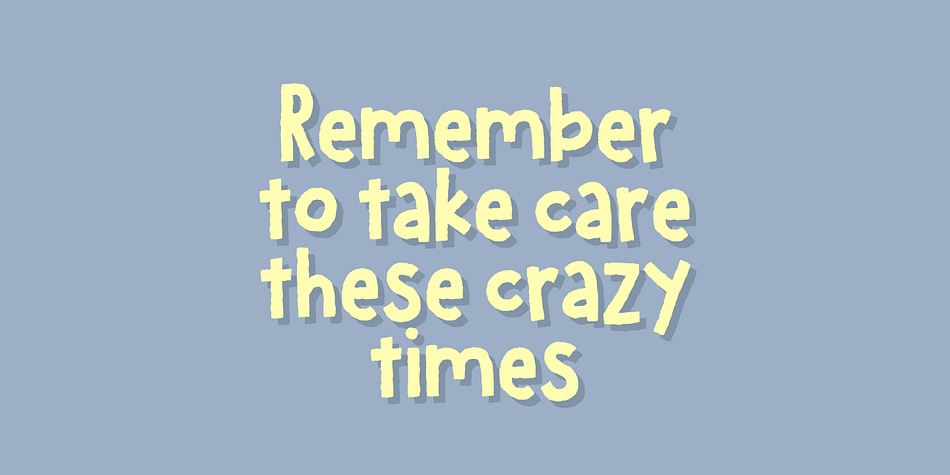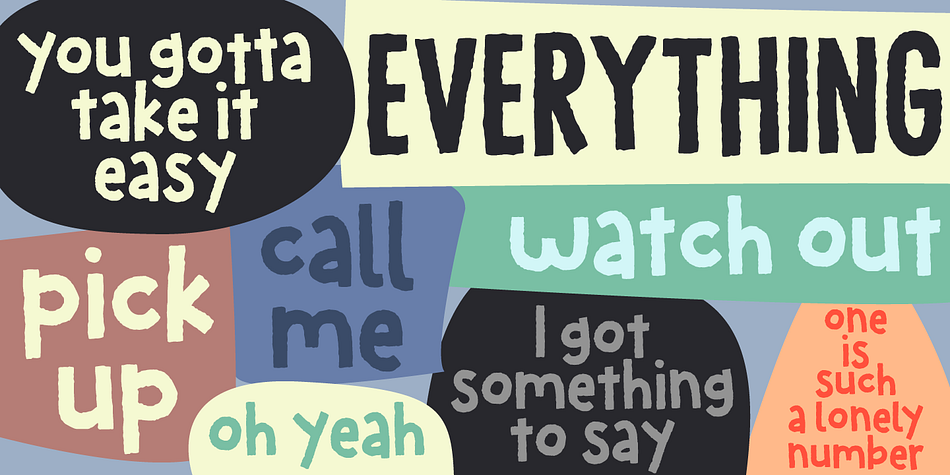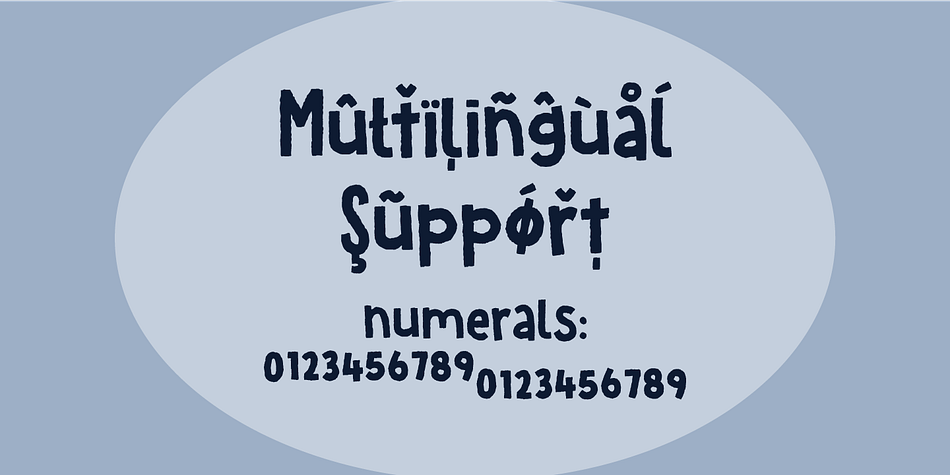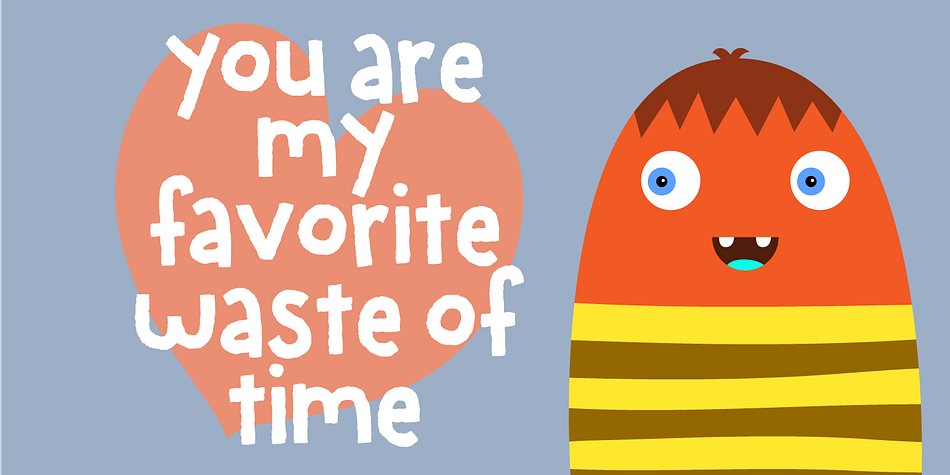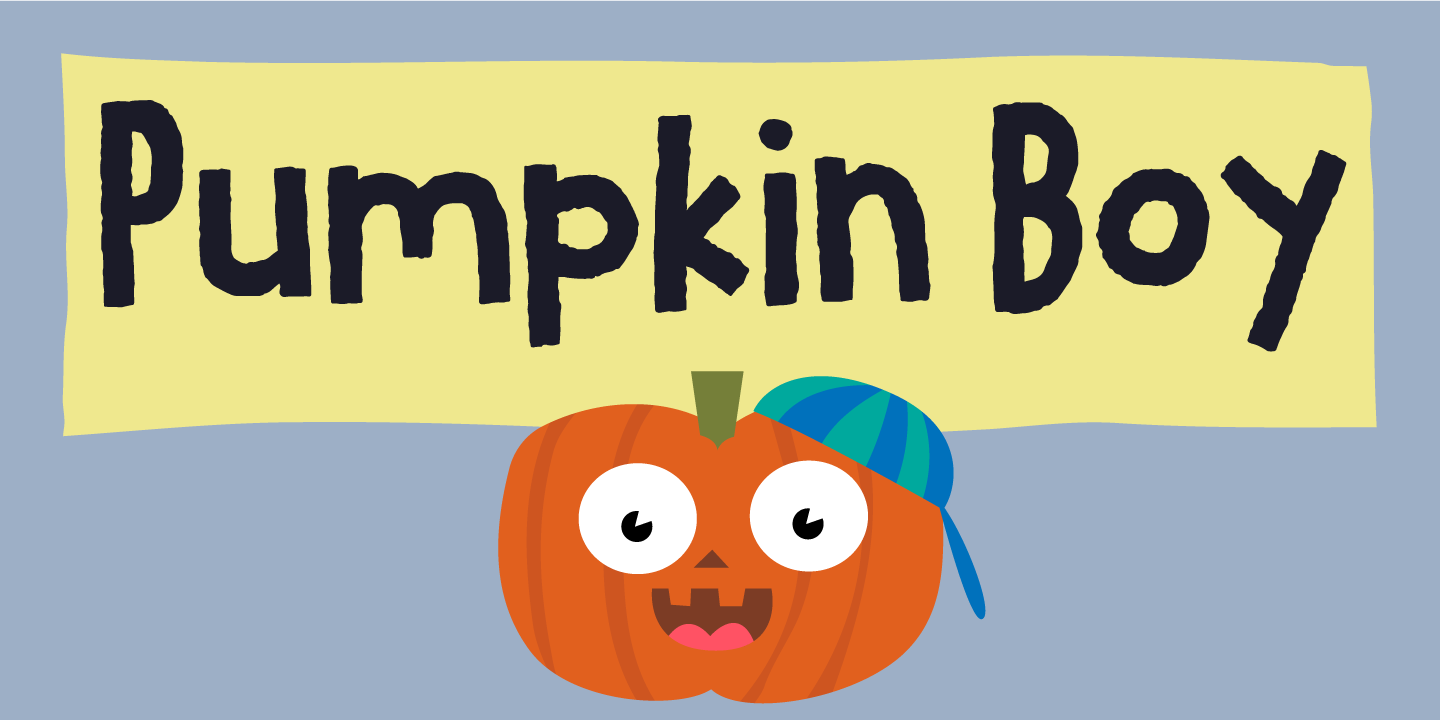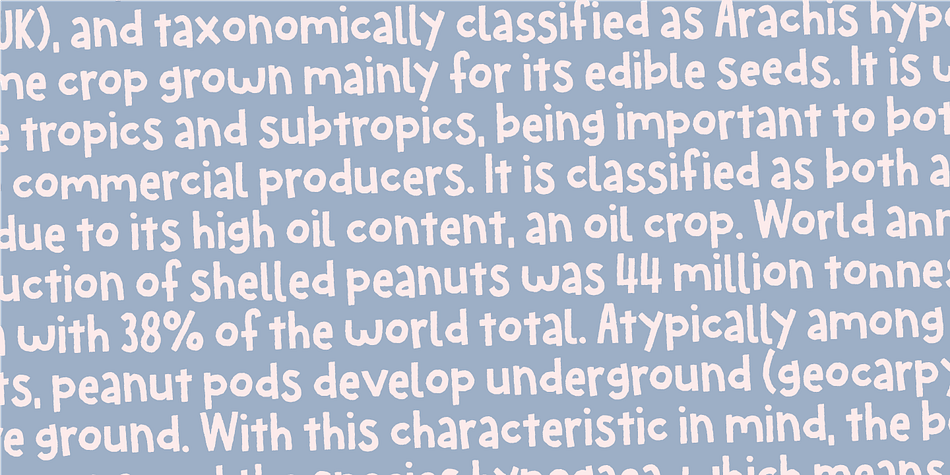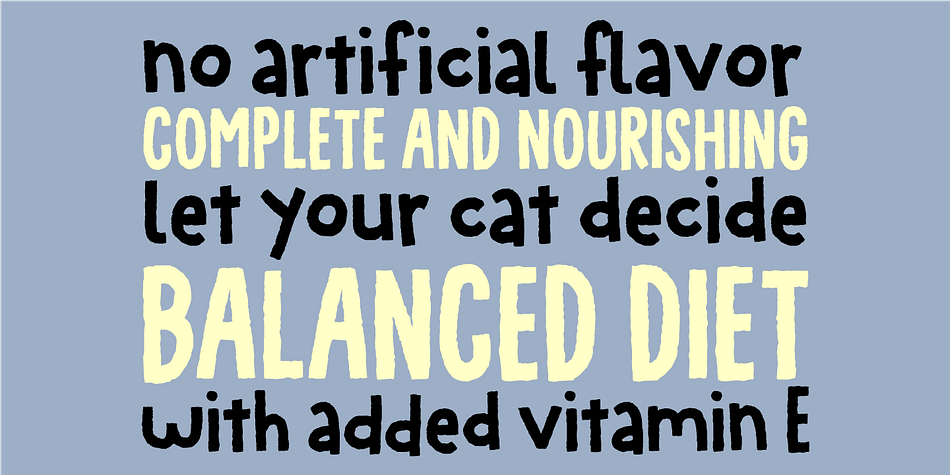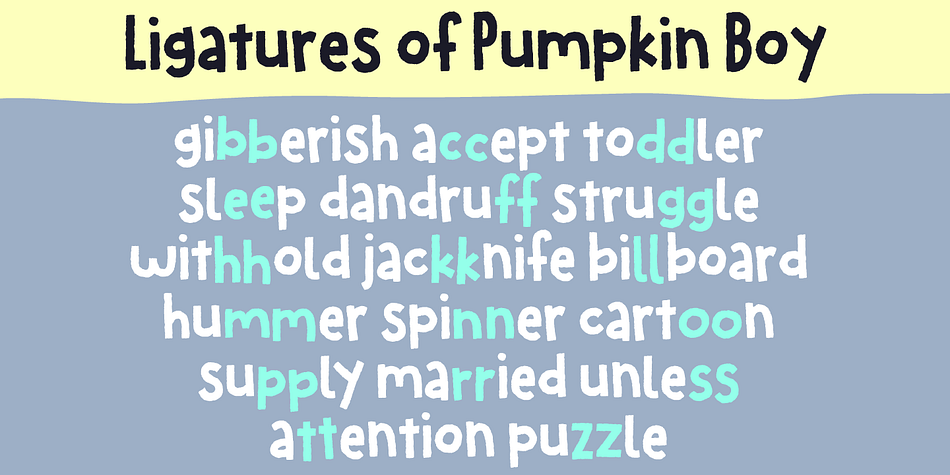
Designed by Jakob Fischer, Pumpkin Boy is a hand display font family. This typeface has two styles and was published by Pizzadude.dk.
October is the season for pumpkins - some of them are meant for soups, salad or other kinds of food. Others are cut into creepy looking pumpkinheads…and then there are the ones that are used for fun and games only! And that is exactly what this font is about!
Pumpkin Boy is my laid back comic font with a jumpy x-height and crunchy lines. If you choose to write in uppercase only, the letters are a bit less funky, but still crunchy and great for headlines.
I’ve added ligatures for double letters substitution for the most common letter combinations.